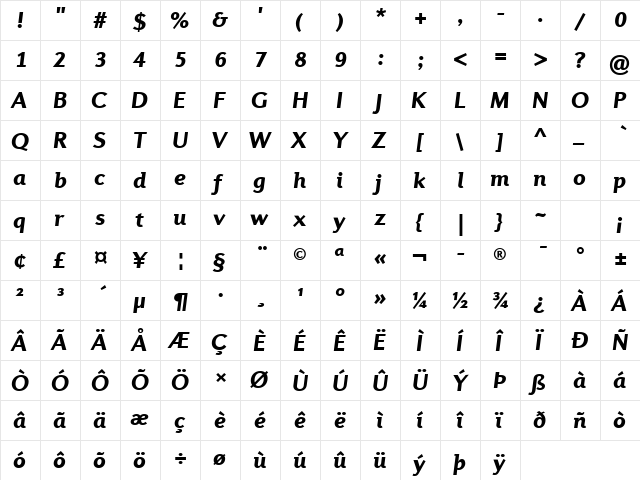
Diverda Sans Com Black Italic
| Foundry | Linotype GmbH |
| Designer | Daniel Lanz |
Design Context for Diverda Sans Com Typeface
Diverda Sans Com offers clean, dependable letterforms without strong stylistic allegiance, making it a practical choice for designers who need flexibility. The slanted form adds forward momentum and visual energy.
Pro Tip: Use Diverda Sans Com for emphasis, pull quotes, and subheadings where its slanted energy can add rhythm to the layout.